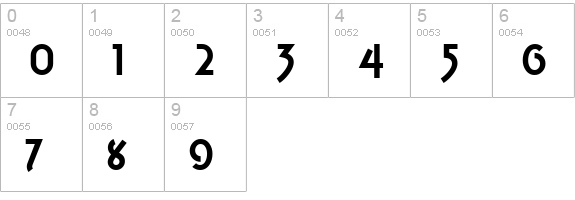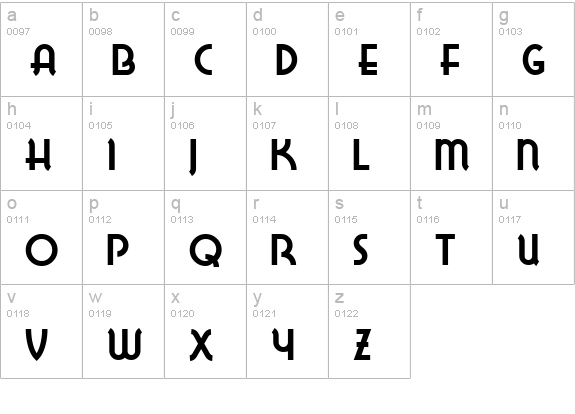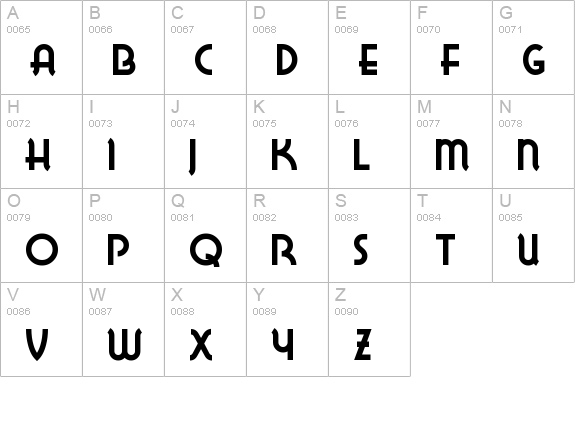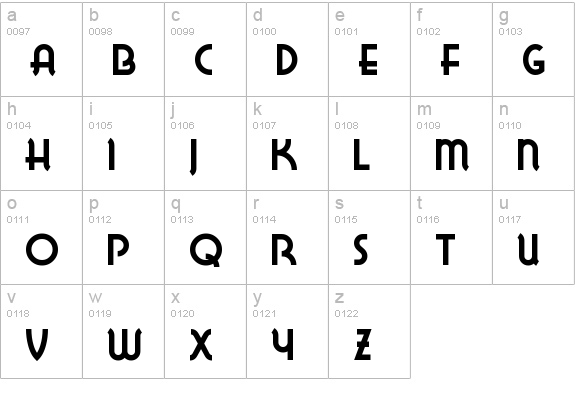
LakeWobegonNF Font Details
Introducing LakeWobegonNF, a captivating and versatile font that effortlessly captures the essence of nostalgia and charm. This font is reminiscent of vintage signages and handwritten notes from a bygone era, making it perfect for adding a touch of rustic elegance to your design projects. LakeWobegonNF is a typeface that effortlessly blends the timeless beauty of traditional letterforms with a modern twist. Its carefully crafted uppercase and lowercase characters exude a sense of warmth and authenticity, ideal for bringing a touch of personality to your branding, packaging, logos, and more. With its wide range of ligatures, alternate characters, and stylistic sets, LakeWobegonNF offers endless possibilities for creative exploration. Whether you're looking to create a whimsical headline or a delicate script, this font has the versatility to adapt to your every design need. But what makes LakeWobegonNF even more special is that it is freely available to download at FontsMarket.com. Yes, that's right - this incredible font can be yours without spending a dime. So why wait? Discover the magic of LakeWobegonNF and elevate your designs with its timeless appeal. Download it now and let your imagination soar!